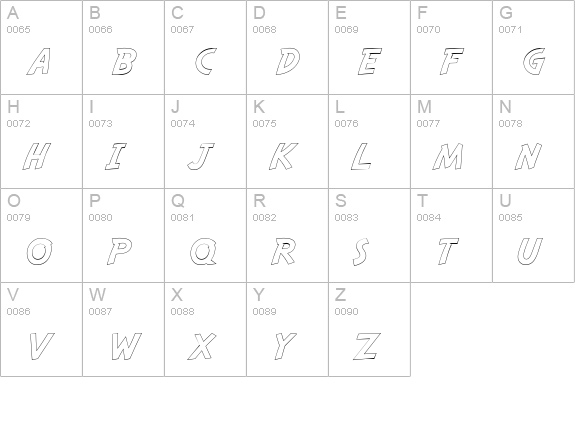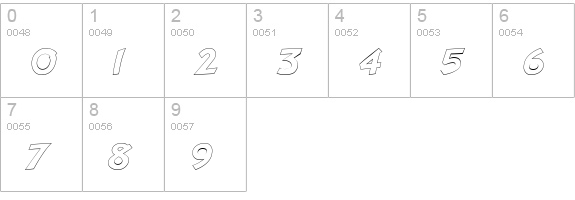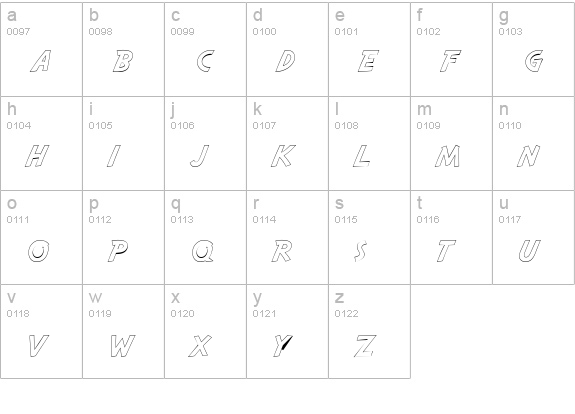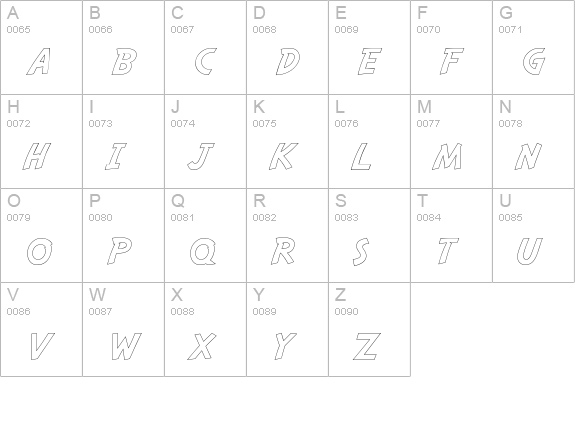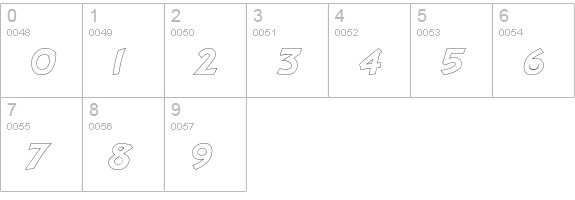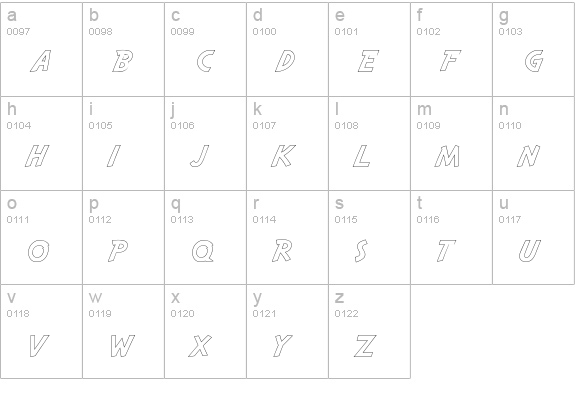
SafariOutline Font Details
SafariOutline font is a stunning display font that exudes elegance and adventure. With its bold and slightly rugged design, this font is perfect for capturing attention and adding a touch of wildness to your projects. The unique outline style of SafariOutline font makes it incredibly versatile, allowing it to be used in a variety of design projects. Whether you're creating a logo, poster, or even a website, this font is sure to make a lasting impression. What's even better is that SafariOutline font is completely free! Yes, you read that right. This amazing font is freely available to download at FontsMarket.com. So, you can bring the spirit of the safari into your designs without having to spend a dime. Don't miss out on this incredible opportunity to enhance your designs with the captivating SafariOutline font. Download it now from FontsMarket.com and let your creativity roam free.